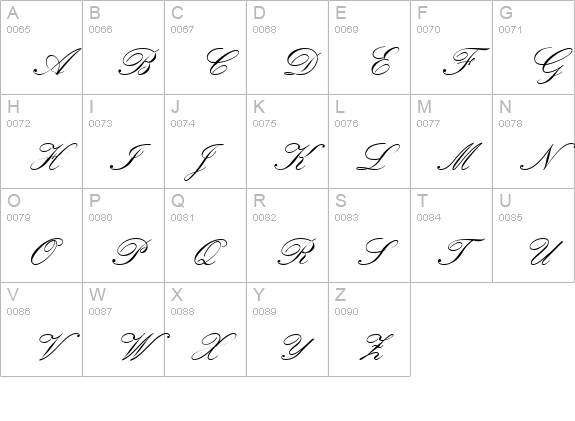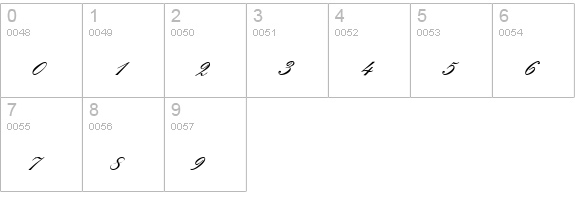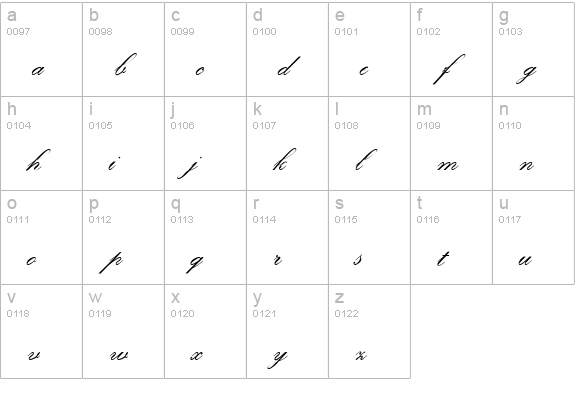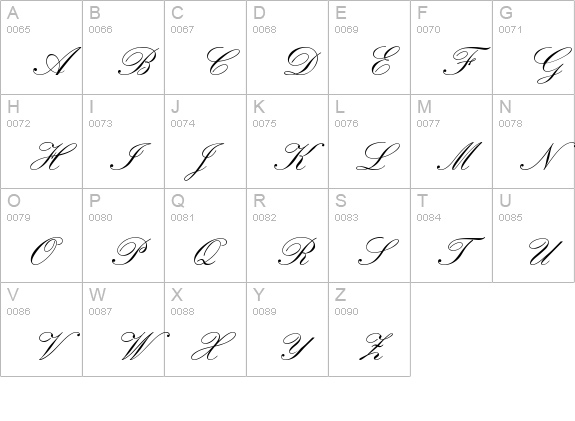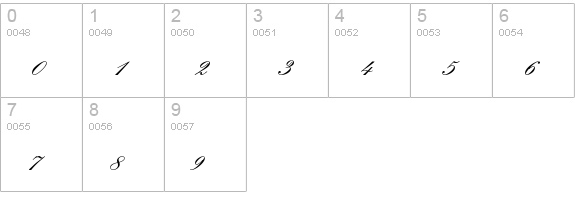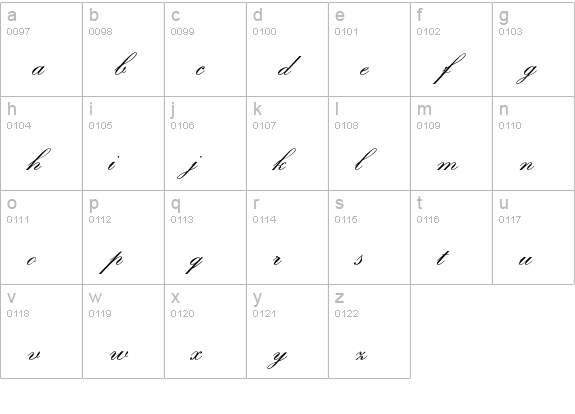
Classic Script MN is a timeless and elegant font that exudes sophistication and charm. With its delicate flourishes and graceful curves, this font is perfect for adding a touch of refinement to any project. Whether you're designing wedding invitations, creating a logo, or crafting a vintage-inspired poster, Classic Script MN is sure to make a lasting impression. The best part? Classic Script MN is available for free! You can easily download this beautiful font from FontsMarket.com and start using it in your designs today. Embrace the beauty and versatility of Classic Script MN to elevate your projects with a touch of classic style.